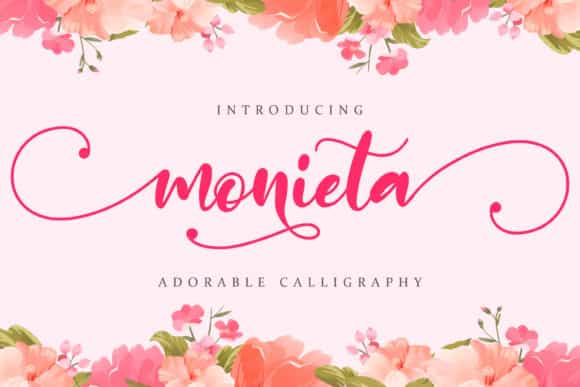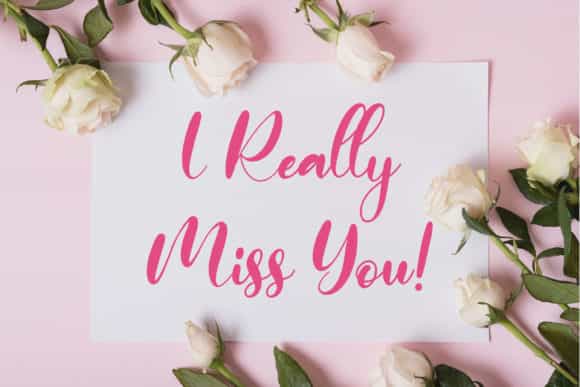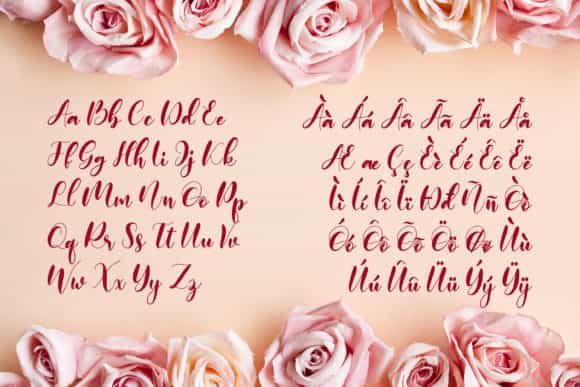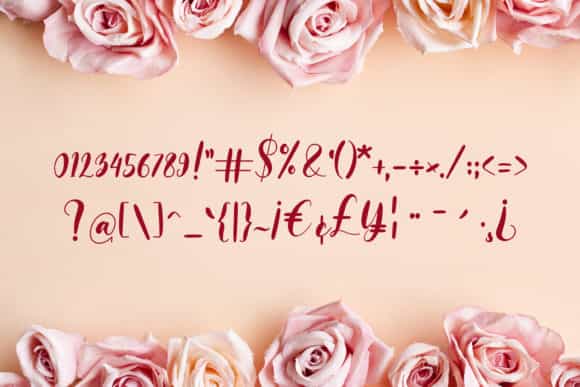
Discover Monieta Dorable Calligraphy Font, part of the Calligraphy collection—a versatile and unique font perfect for adding a personal touch to your projects. Download it for free and enjoy crafting designs with style, from invitations to social media posts. This font is available exclusively for personal use, giving you the freedom to create without limits. Unlock your creativity with Monieta Dorable Calligraphy Font today!
Monieta script font is a modern beautiful Calligraphy touch in it. Driven by dynamic culture, retro design, with a touch of elegance, sign and badges design. This font is perfect for your design project like logos, posters. invitations cards, wrapping, badges, logotype, apparel design, Label, and so on.